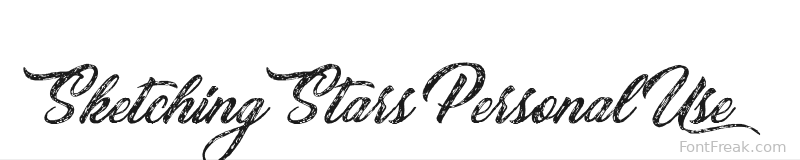
Sketching Stars Personal Use
Sketching Stars Personal Use is a captivating handwritten font designed by Billy Argel Fonts. This display-style typeface exudes creativity and charm, making it an excellent choice for various design projects. With its unique, flowing strokes, the font features a moderate stroke weight that balances elegance with readability. The letters exhibit a slight contrast, giving them a dynamic appearance while maintaining cohesion. Decorative elements are subtly integrated, enhancing the handwritten aesthetic without overwhelming the overall design.
This font is particularly well-suited for personal projects where a touch of whimsy is desired. It shines in wedding invitations, where its romantic flair can add a personal touch to the special day. Additionally, Sketching Stars is perfect for crafting unique greeting cards, allowing creators to convey heartfelt messages with style. Small business owners can leverage this font for branding materials, such as shop signage or promotional flyers, that aim to capture attention. Content creators will find it ideal for social media graphics, giving posts a distinctive look that stands out in crowded feeds.
Targeting graphic designers, small business owners, and content creators, Sketching Stars Personal Use appeals to those seeking a font that conveys personality and warmth. Its versatility and charm make it an essential tool for anyone looking to add a creative flair to their designs.
In summary, Sketching Stars Personal Use font free download offers an enchanting handwritten style that elevates any project. Its unique visual characteristics and wide array of applications make it an exceptional choice for those looking to infuse creativity into their work. With its delightful charm and artistic flair, this font stands out as a must-have for any design enthusiast.